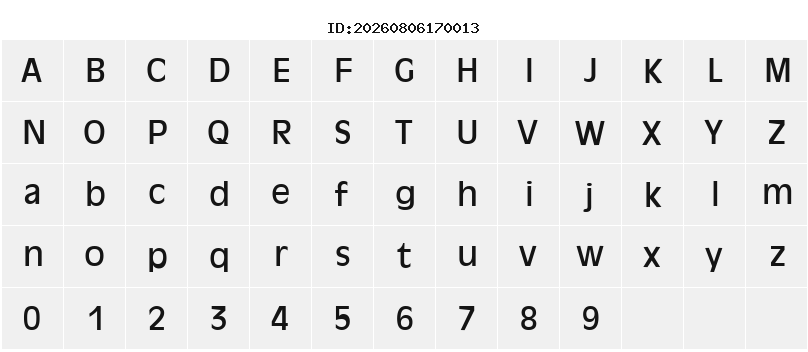
Olivia.ttf is a modern, elegant sans-serif font designed for ultimate readability and visual harmony. Perfect for branding, headlines, web design, and print materials.